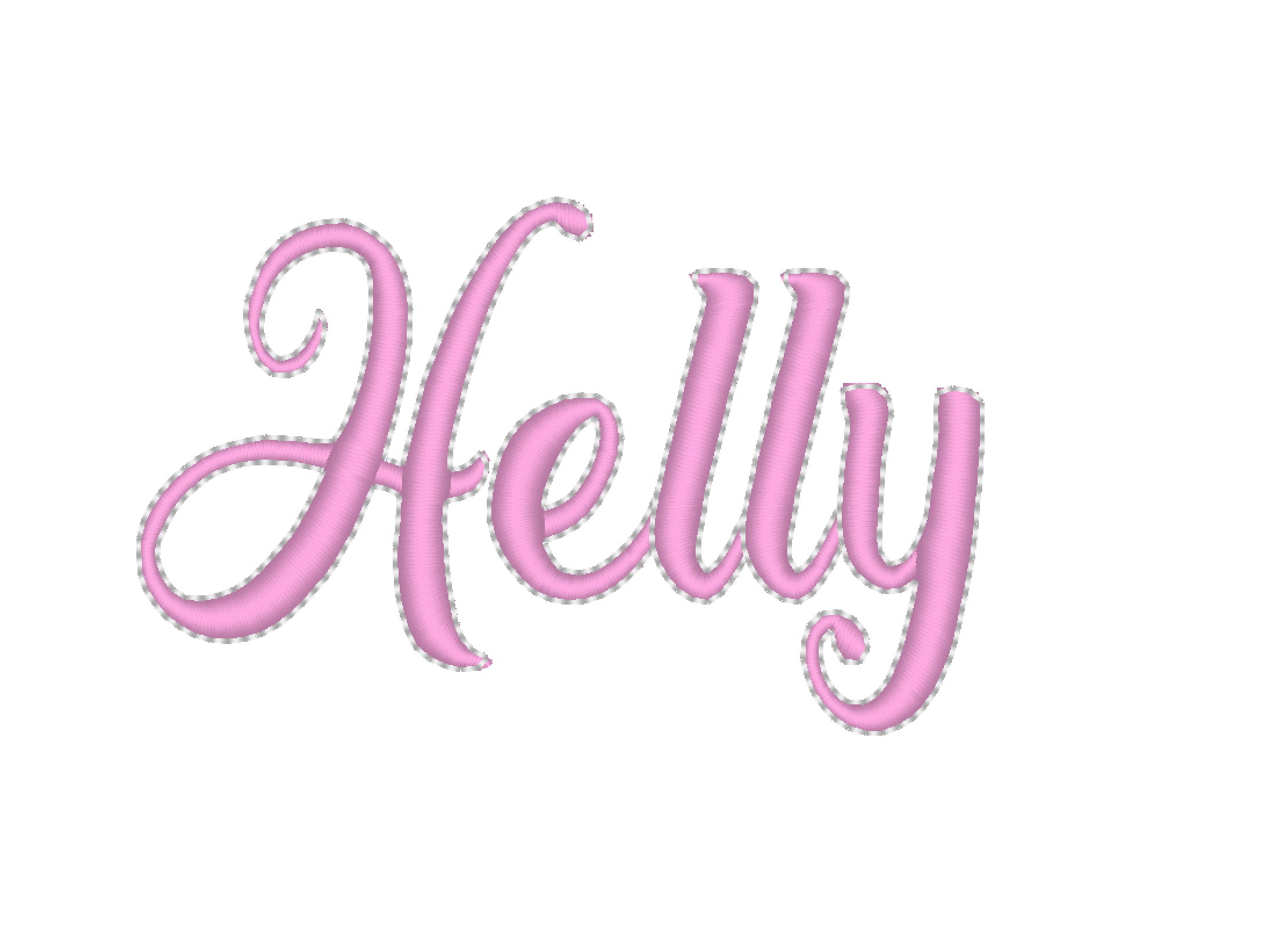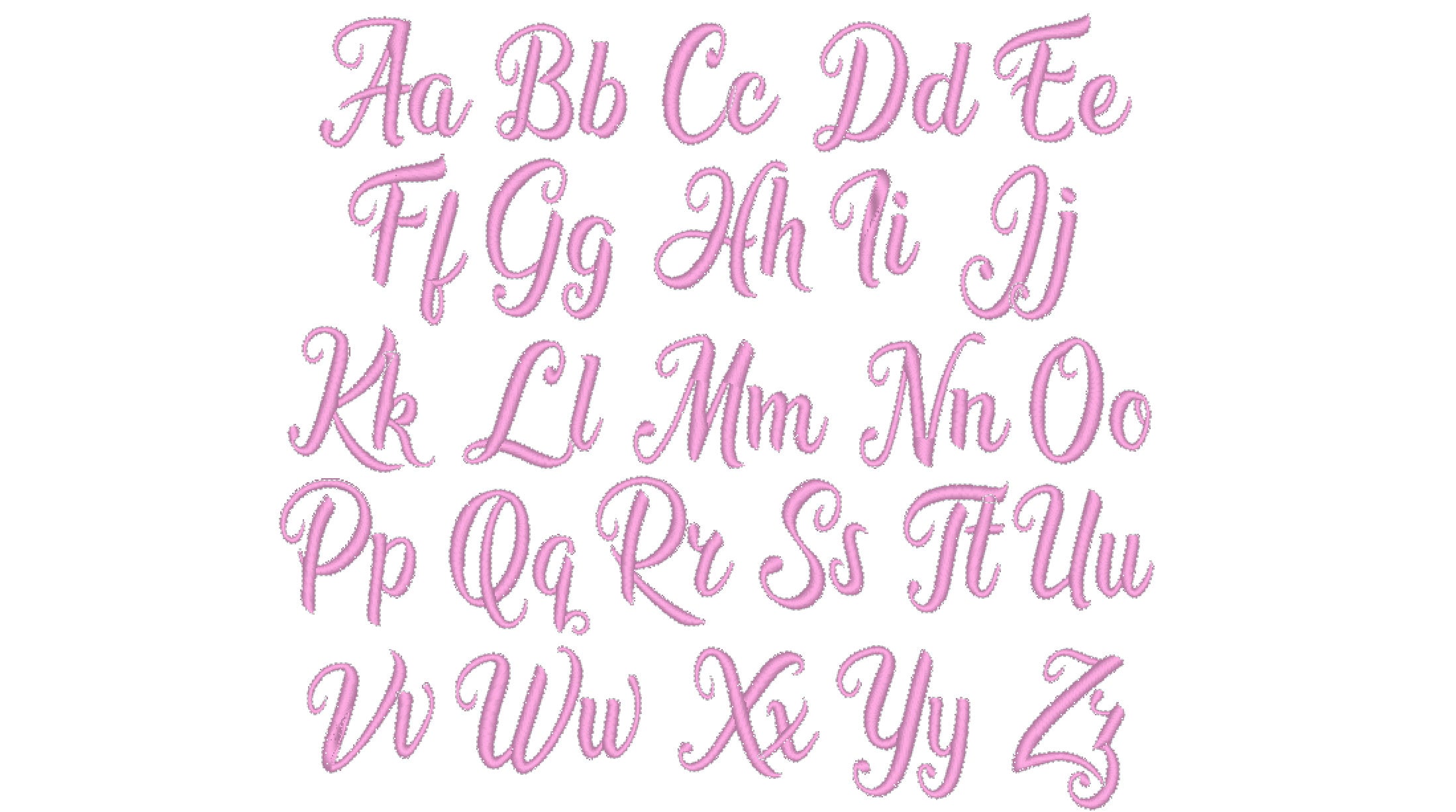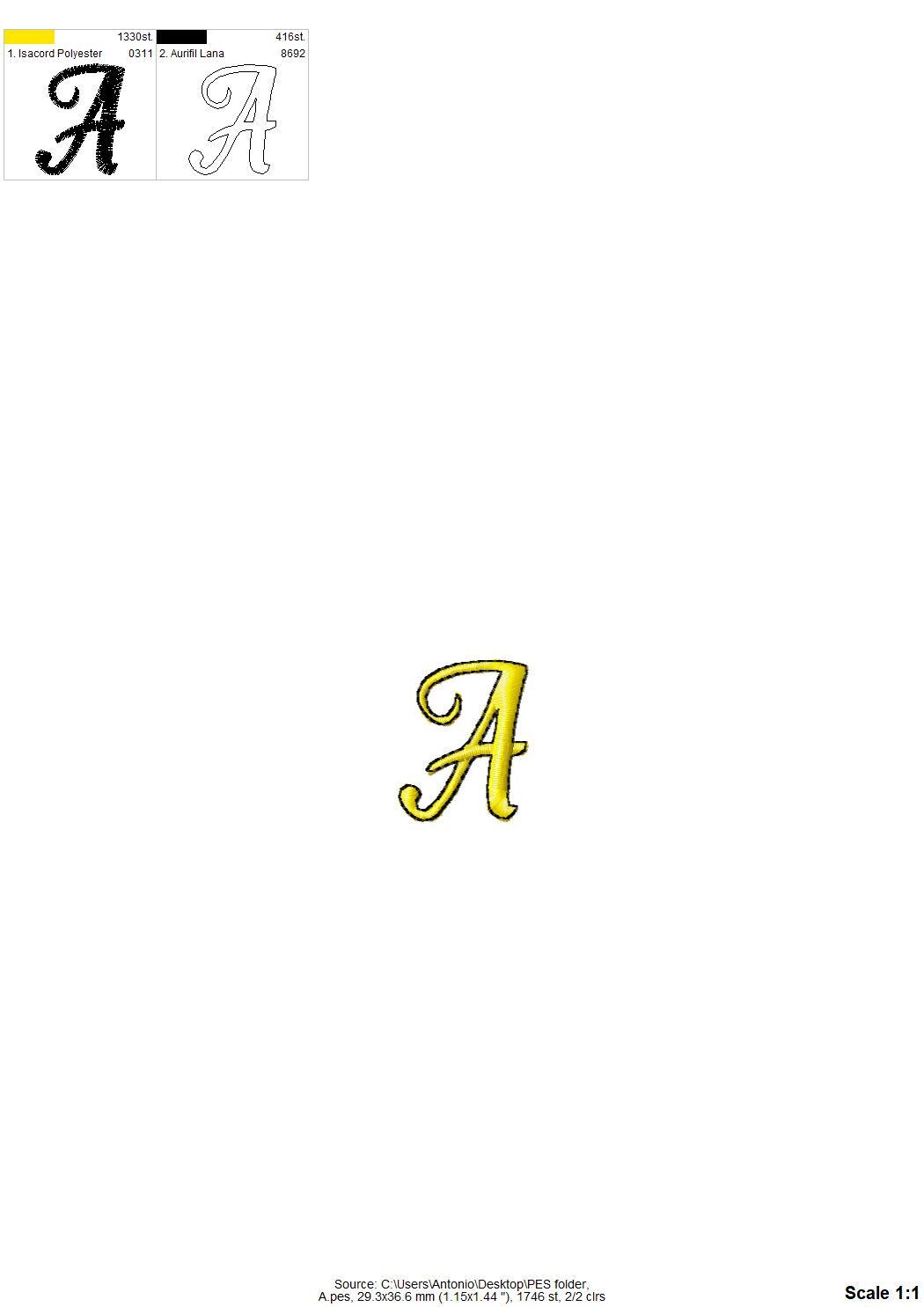
Delicate satin stitch FONT with bean stitch outline handwritten alphabet letters machine embroidery designs sizes 0.6 up to 2.3 inch BX included
Entire alphabet uppercase and lowercase letters Aa-Zz.